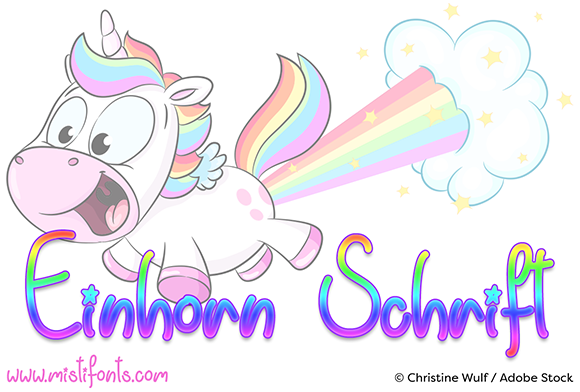
Einhorn Schrift Font
About Einhorn Schrift Font
Einhorn Schrift (Unicorn Handwriting) is a magical handwriting font that is perfect for a variety of projects! This is a jovial and cute font that will ensure laughter and smiles in response to your type-based projects.